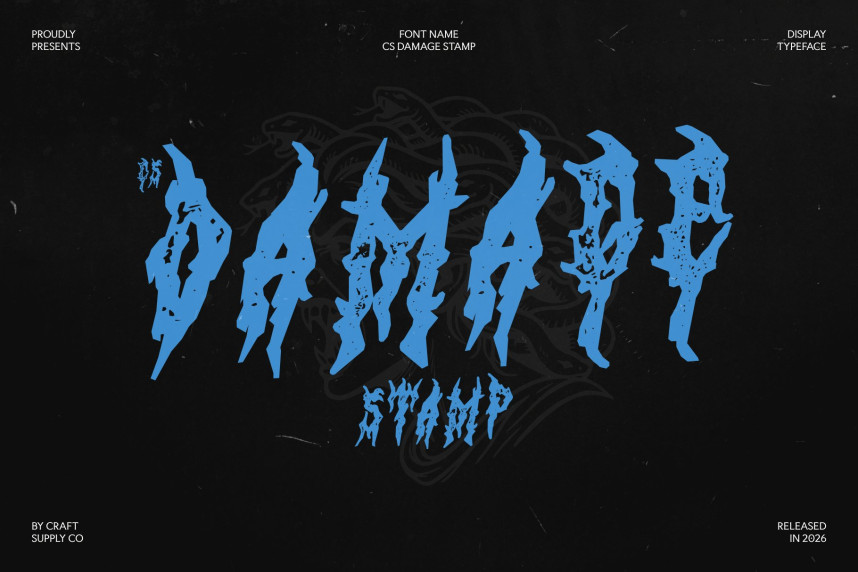
CS Damage Stamp Font
CS Damage Stamp Font – Black Metal Font: Bold Rebellion and Intensity
Black Metal Display Font with Aggressive Aesthetics
This is a fierce display typeface that channels the raw, intense energy of black metal culture. The added stamp effect introduces a distressed, worn texture that enhances its underground attitude, giving the font a gritty, vintage feel while preserving its extreme and rebellious spirit.